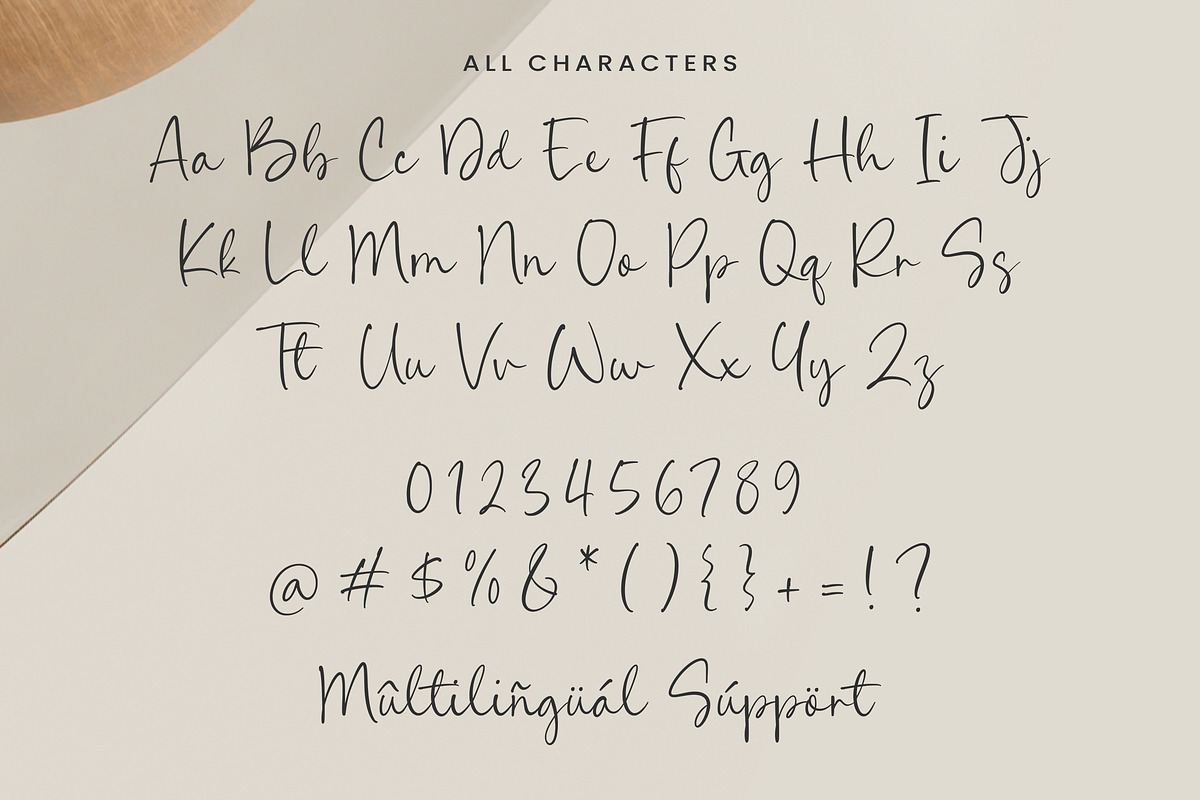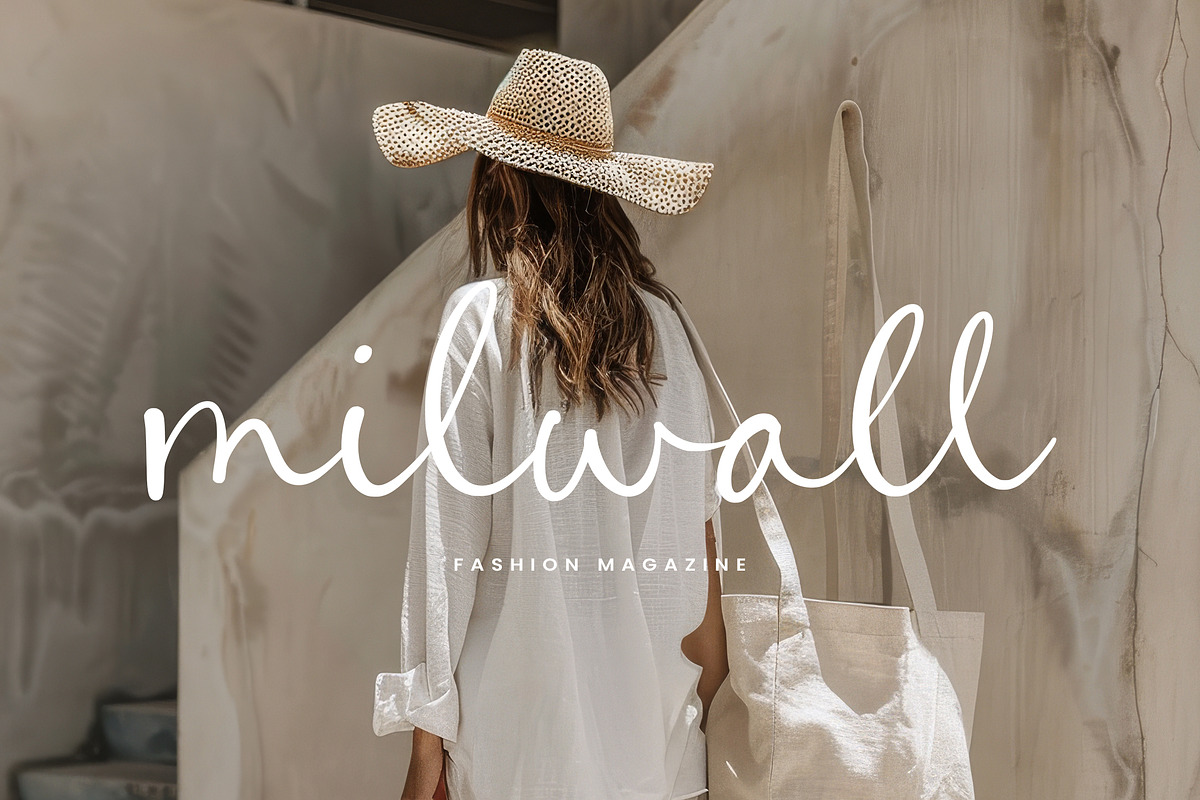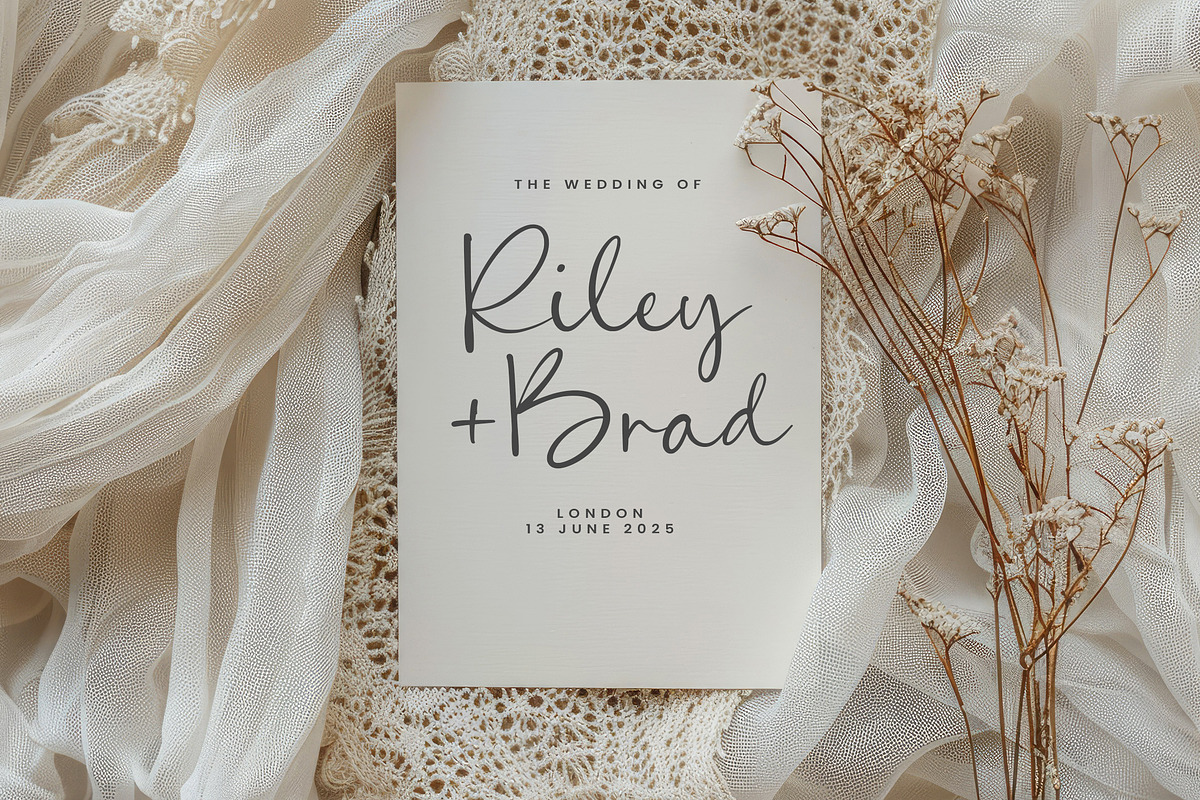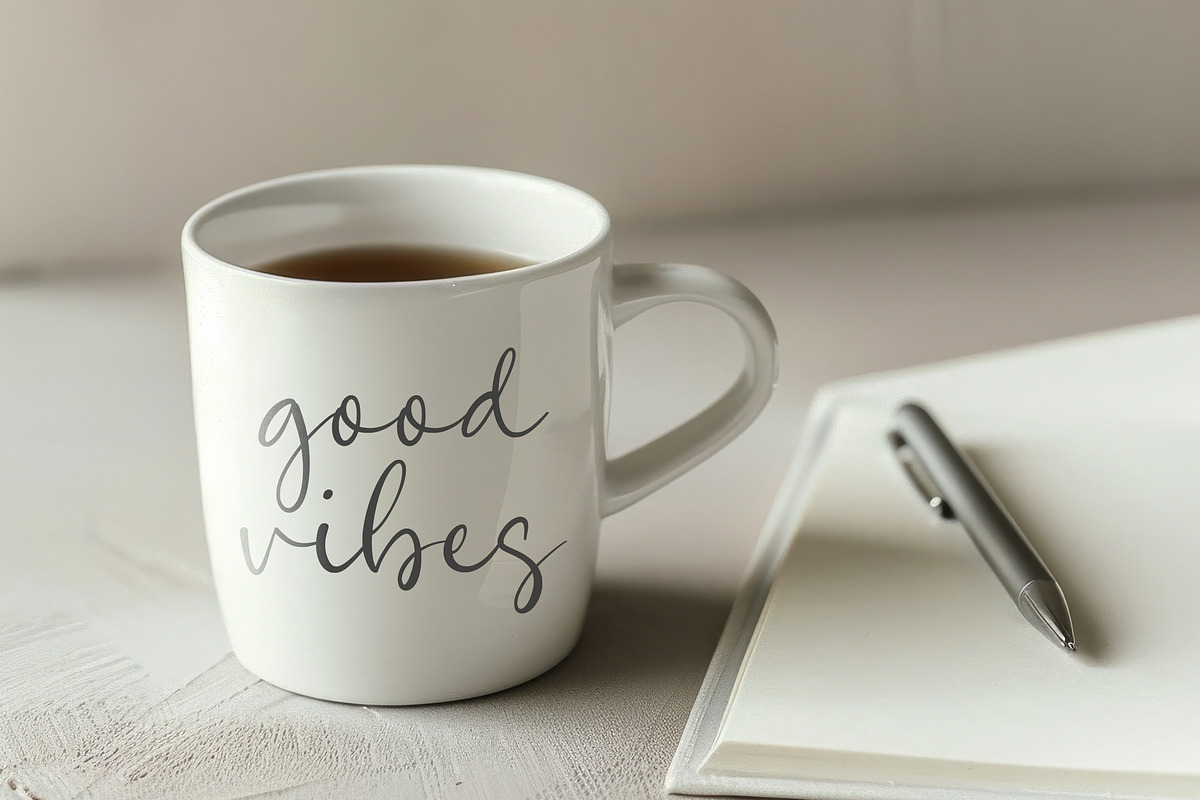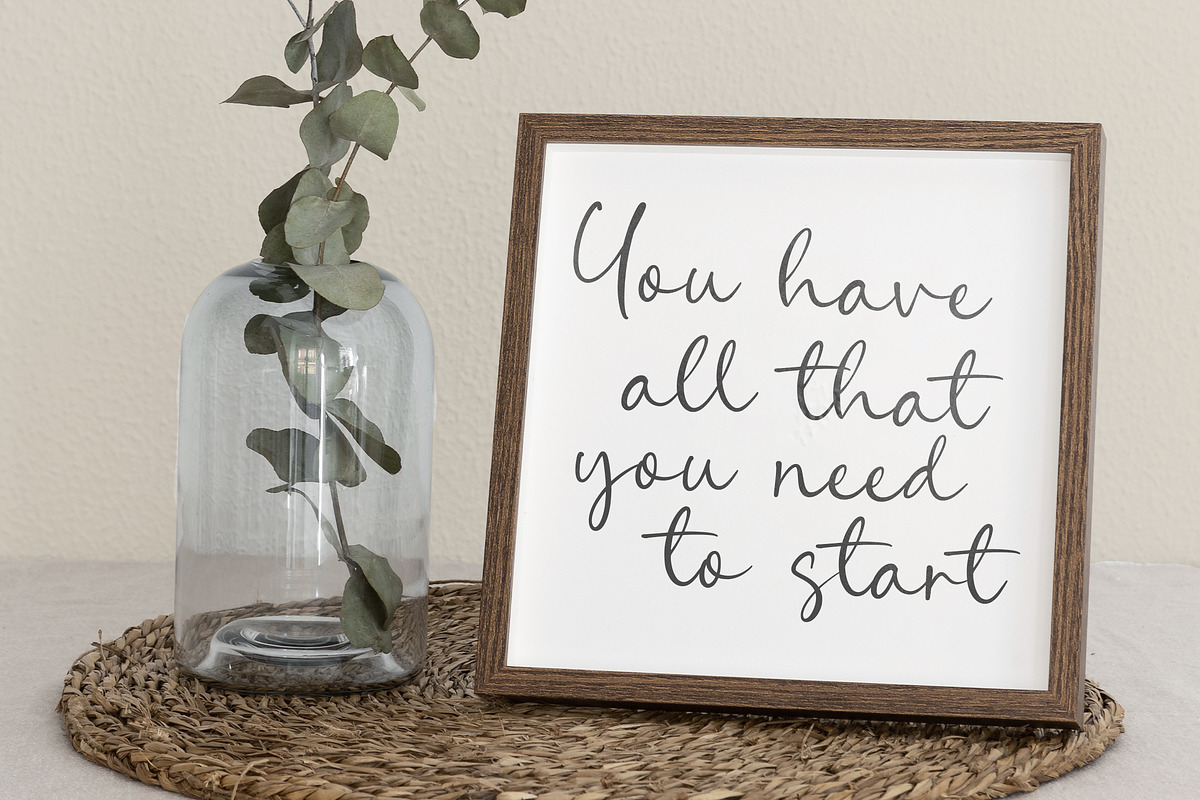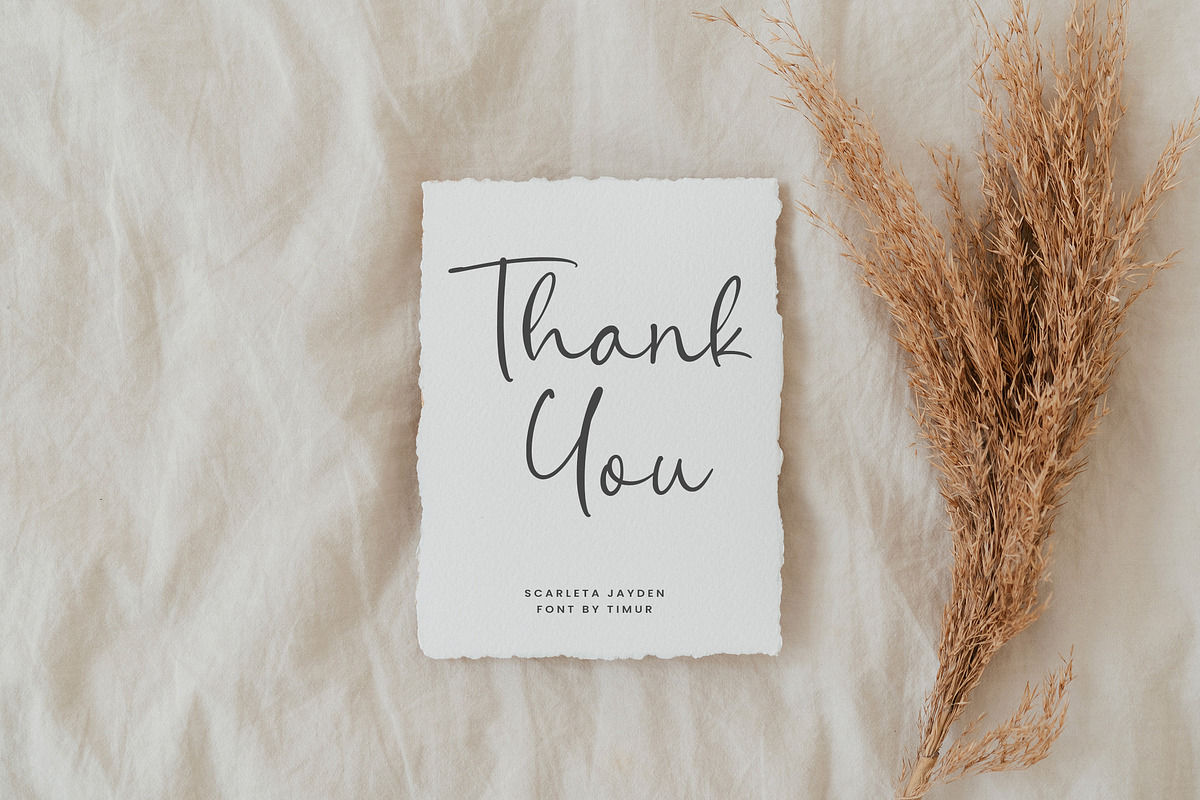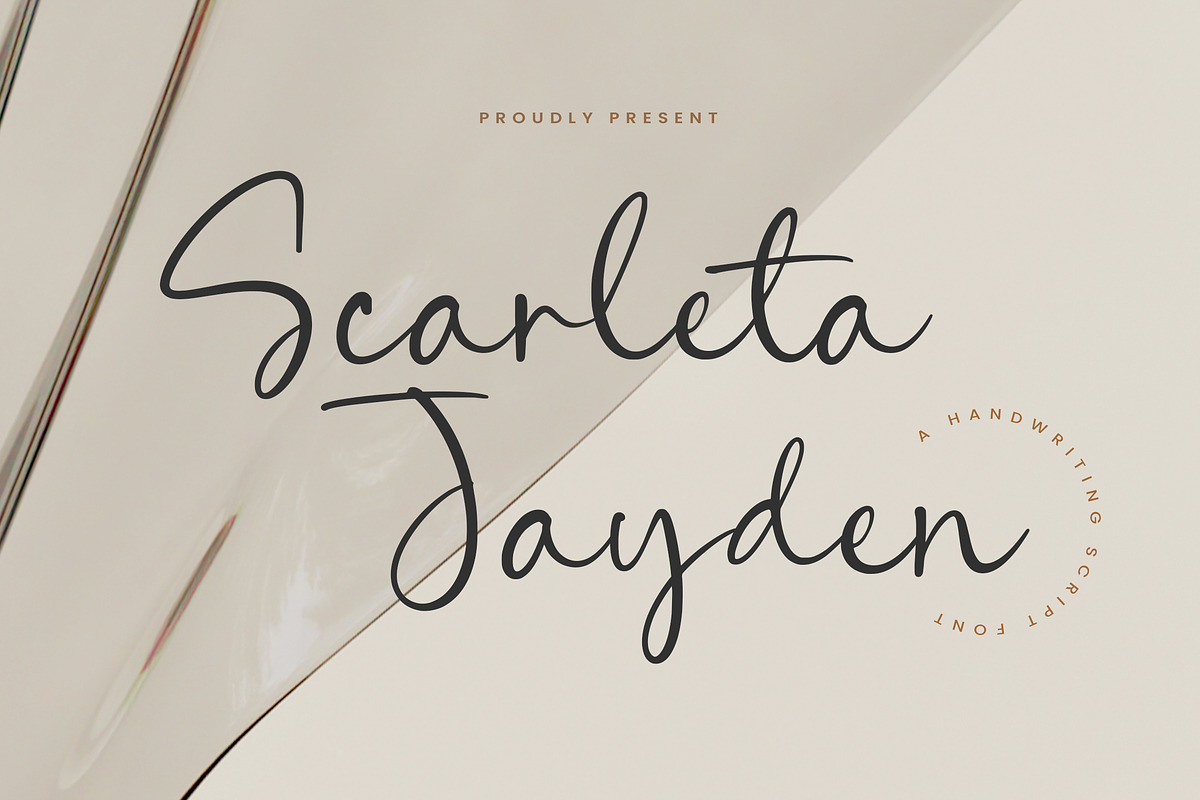
Scarleta Jayden Font
Scarleta Jayden is a Handwritten Script Font
This font is a stylish handwritten script font that exudes elegance and charm. Its fluid strokes and delicate curves make it perfect for creating sophisticated designs, from wedding invitations and logos to social media graphics and branding materials. With its natural flow and artistic flair, Scarleta Jayden adds a graceful touch to any project.
Scarleta Jayden Font also supports multilingualism